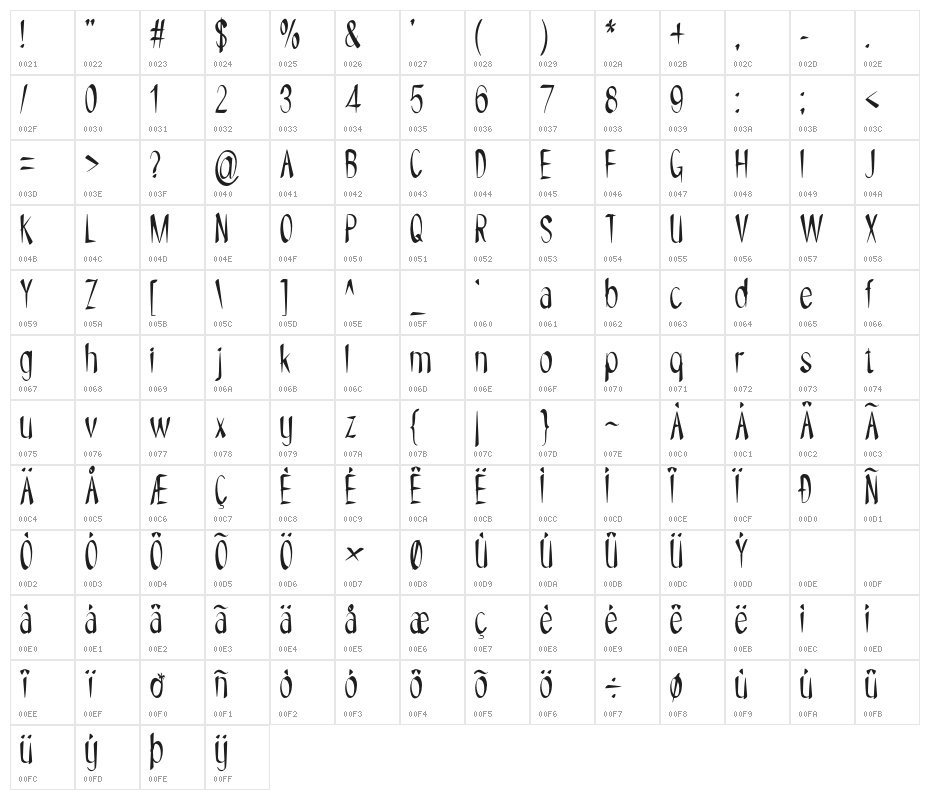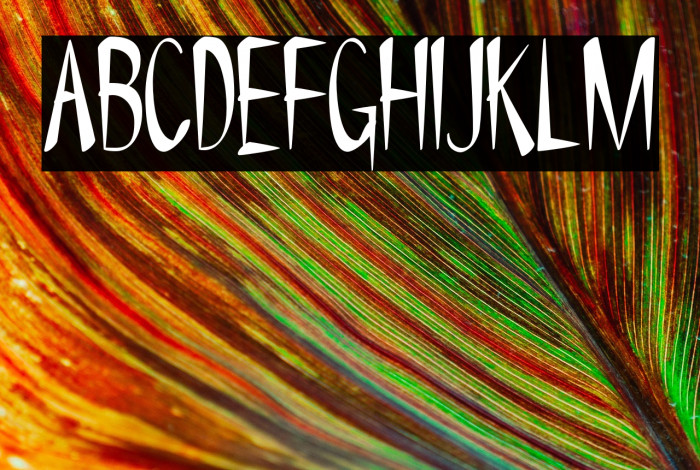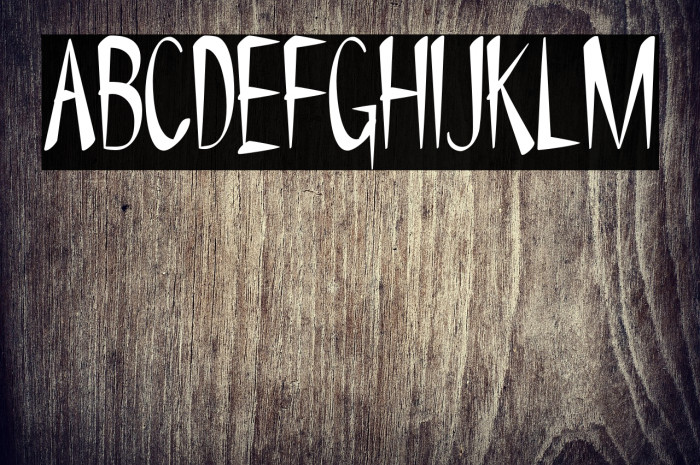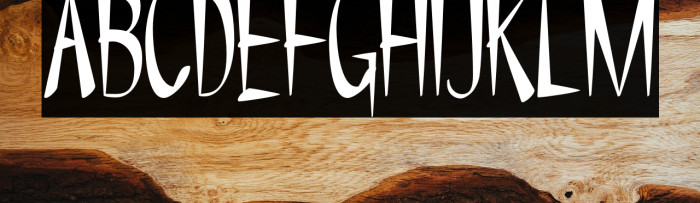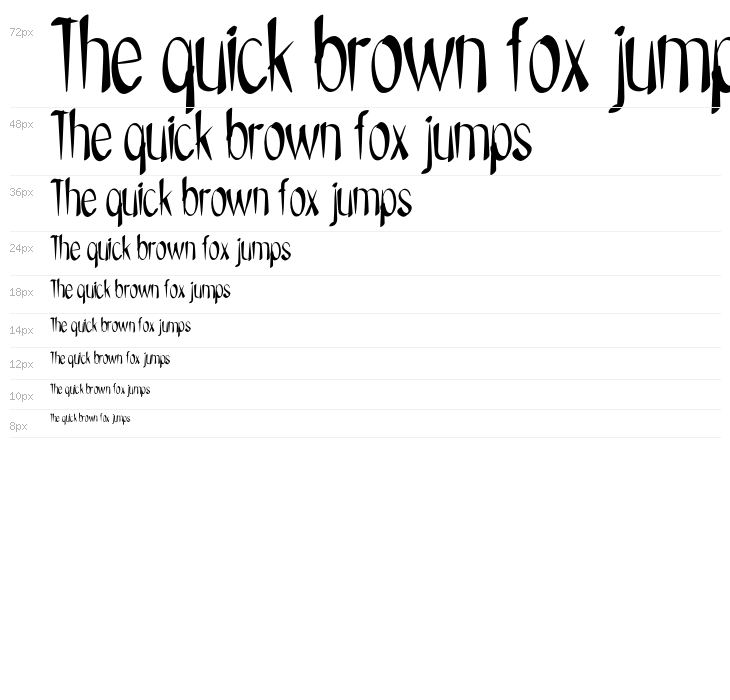
NYOEHOKA Font
NYOEHOKA Description
This font features a playful and artistic style with a hand-drawn appearance. The letters are characterized by their irregular shapes and varying stroke widths, giving it a dynamic and lively feel. The uppercase letters are tall and narrow, while the lowercase letters maintain a consistent flow with slightly exaggerated curves. The numbers are bold and distinct, complementing the overall whimsical nature of the font. Special characters are creatively designed, adding to the font's unique personality. This style is perfect for projects that require a touch of creativity and individuality.